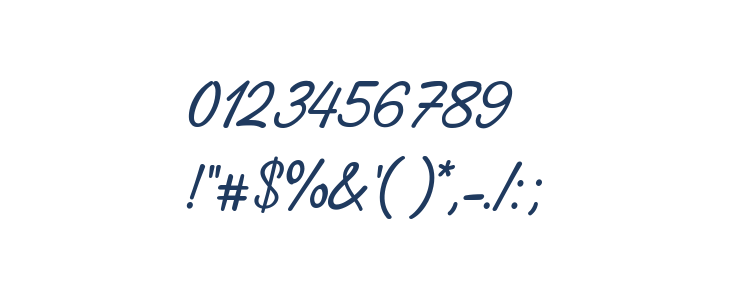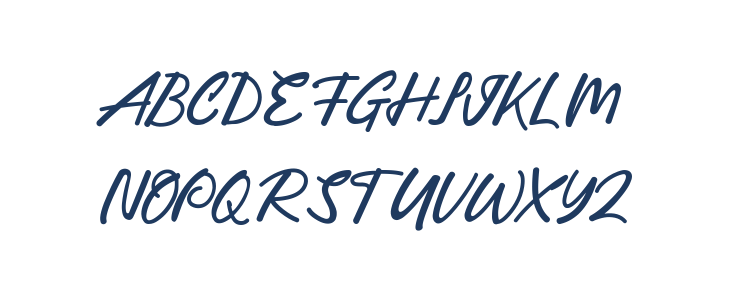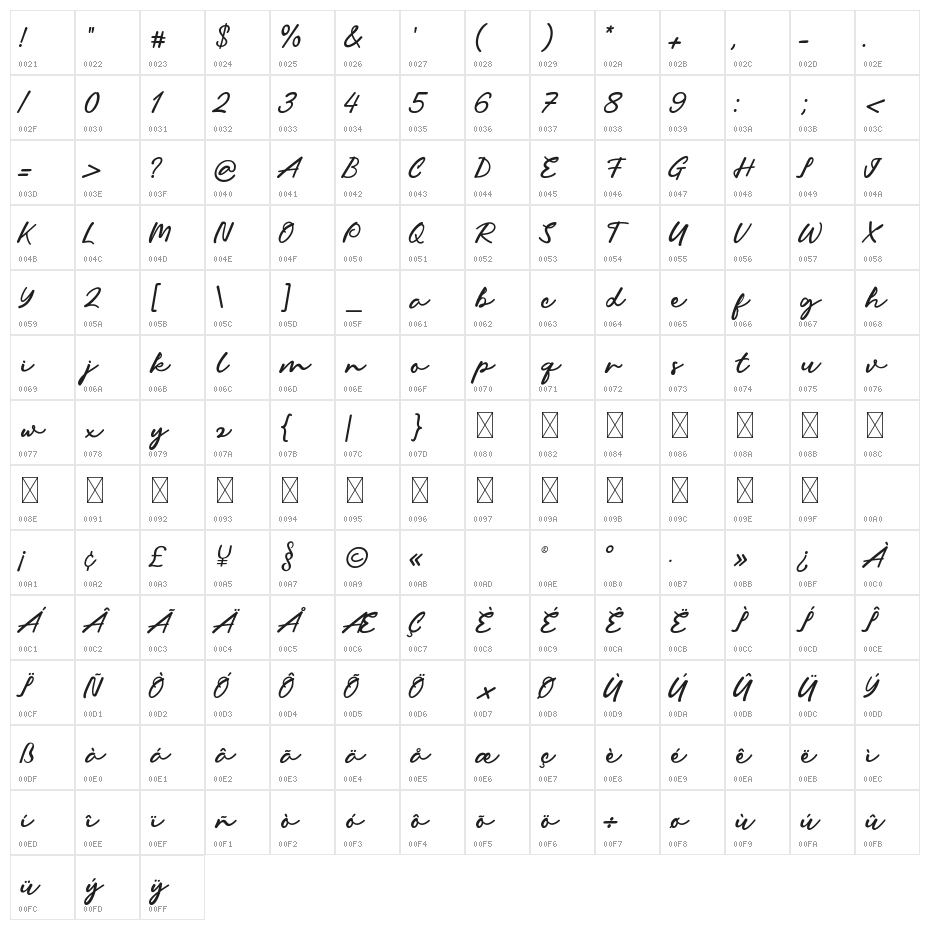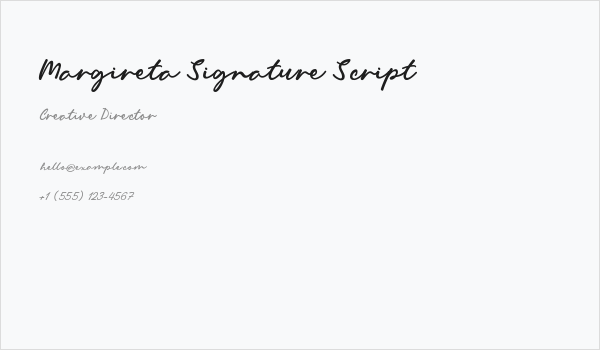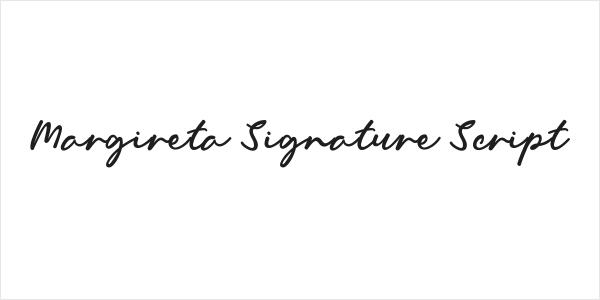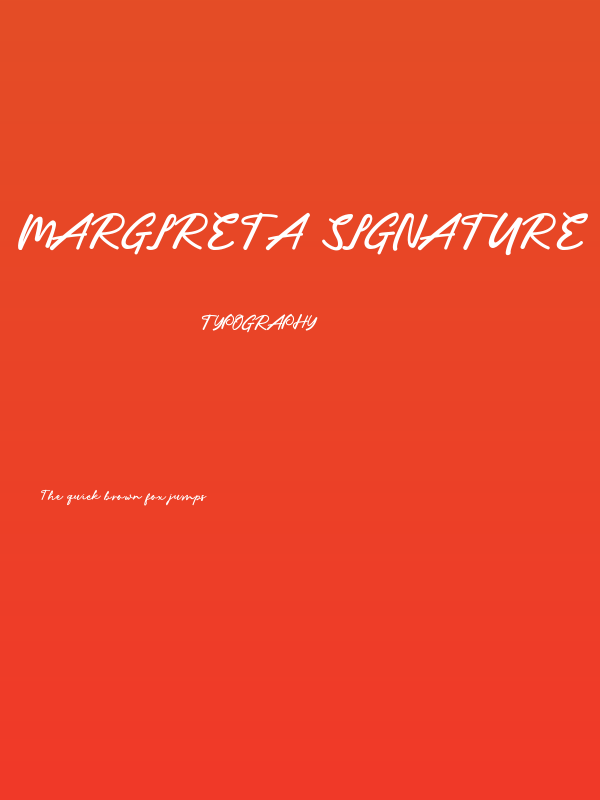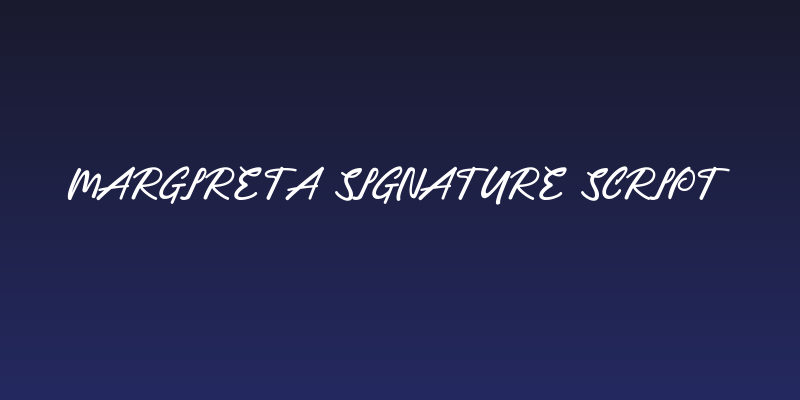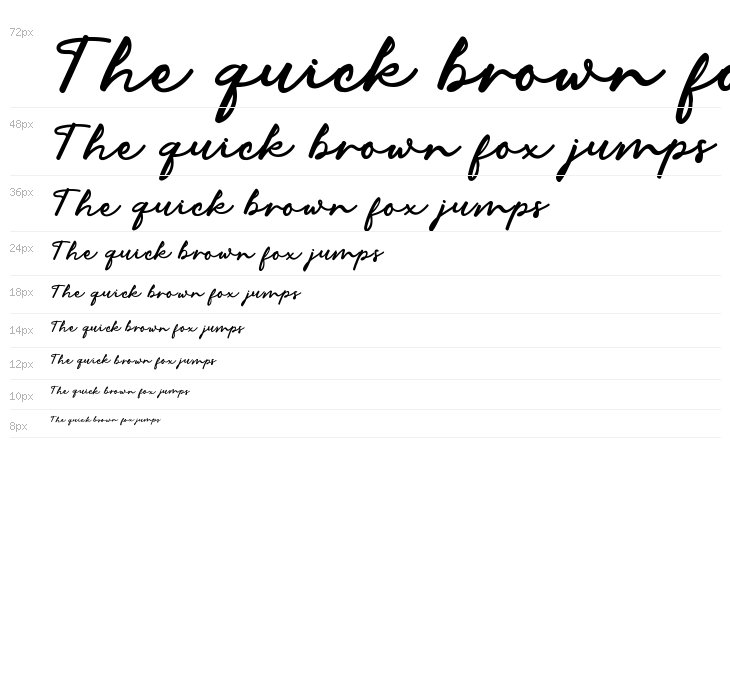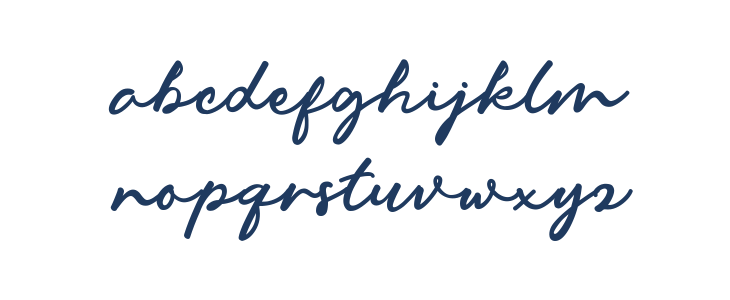
Margireta Signature Script Font
Margireta Signature Script Description
A flowing, cursive script with a handwritten appearance, featuring smooth, connected strokes and a natural, organic rhythm. The characters are slightly slanted, with moderate contrast in stroke thickness and rounded terminals, evoking the look of a personal signature.
| Overall Style | Decorative, Handwritten, Elegant |
| Use Case | Signatures, Invitations, Branding, Logos |
| Proposed Projects | Personal branding, wedding invitations, greeting cards, logos, social media graphics, and packaging. |